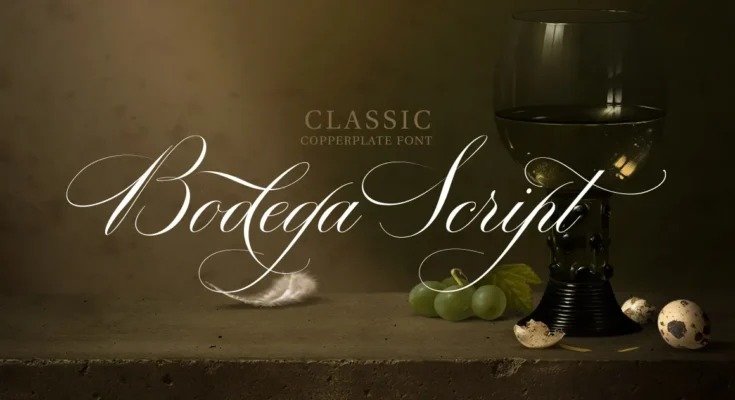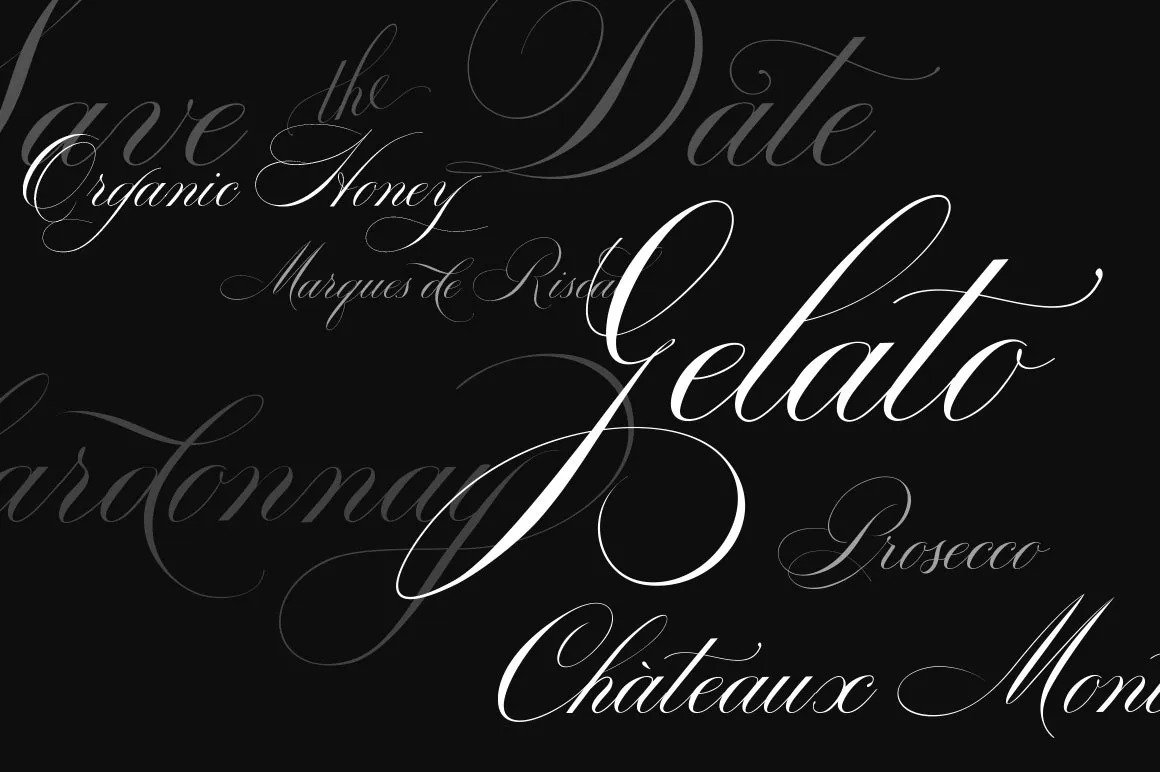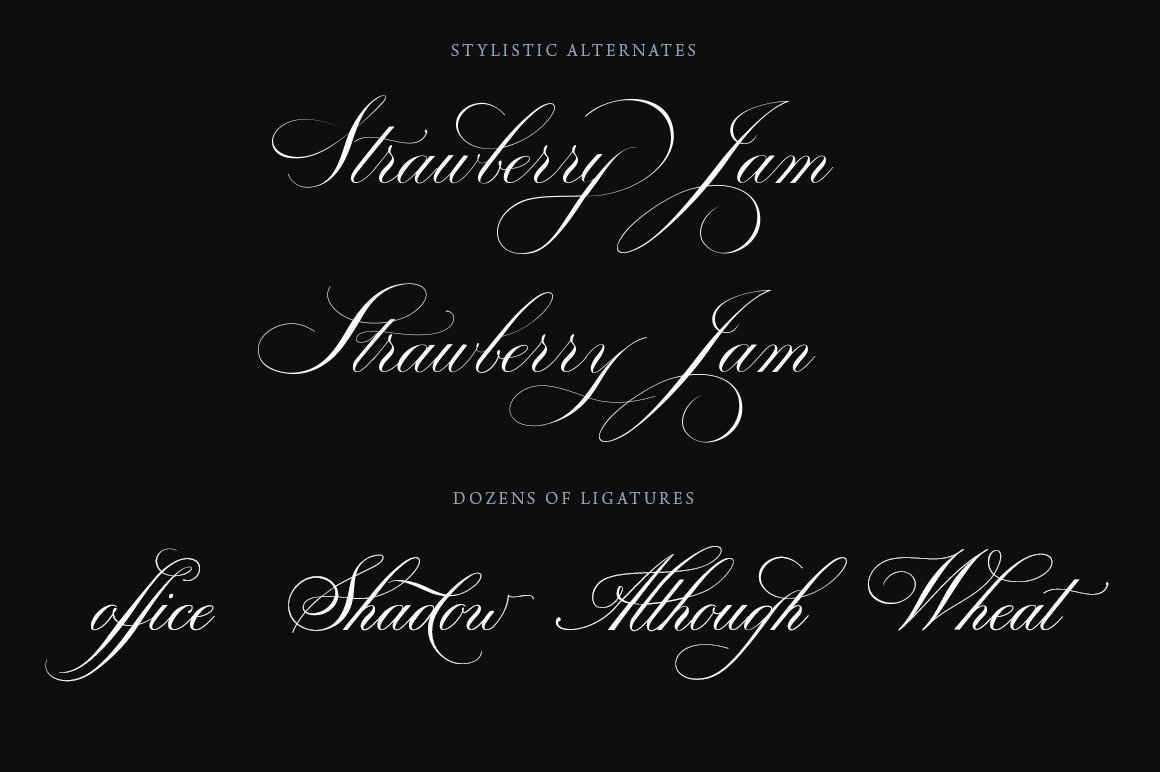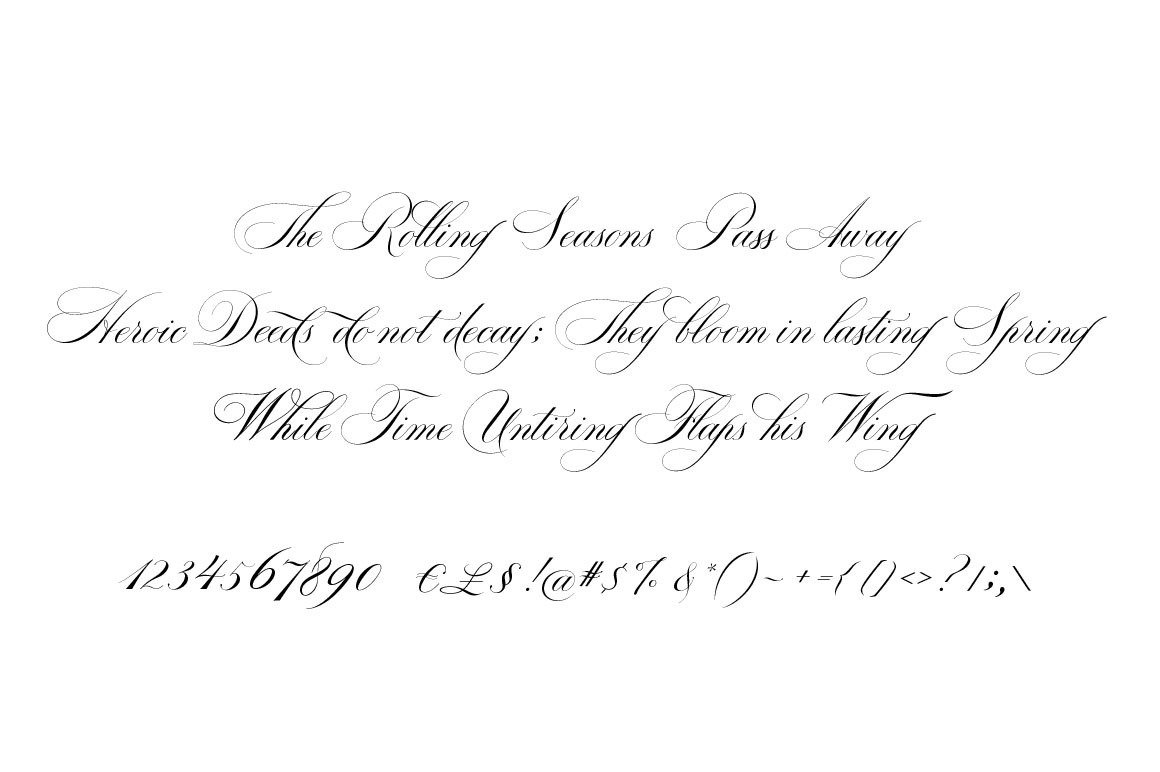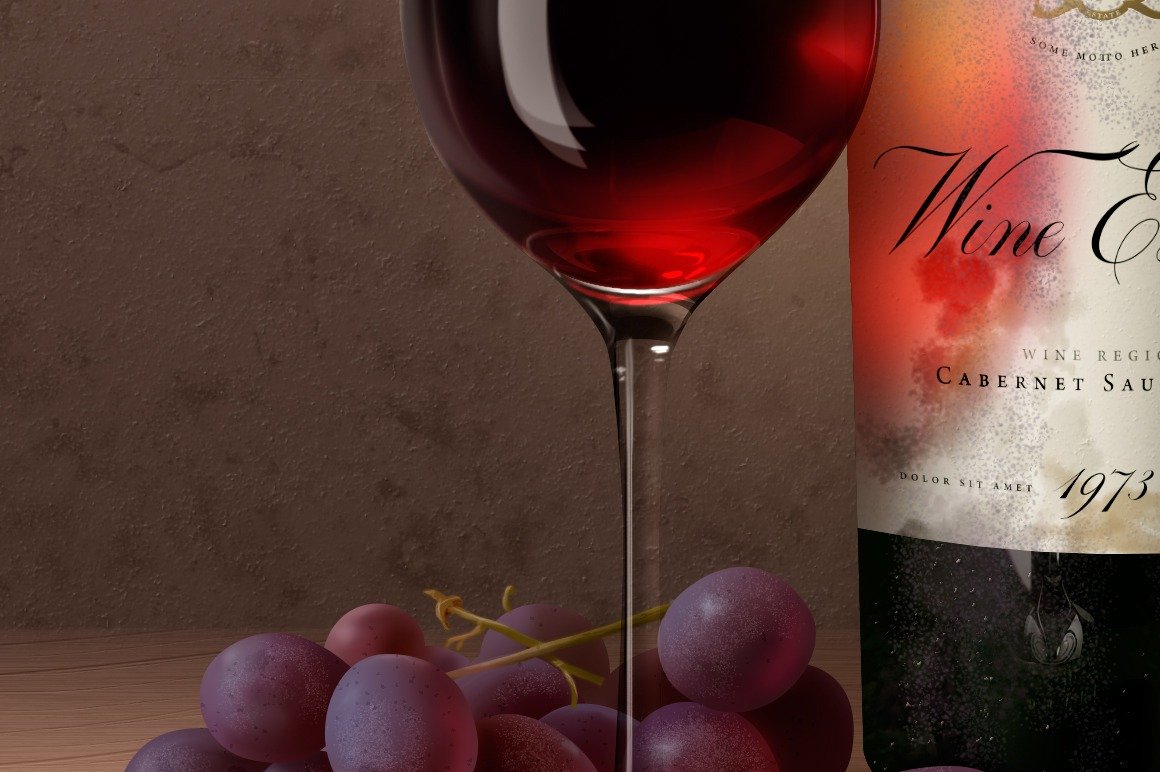
Bodega Script – An Elegant Wedding Font for Timeless Celebrations
Introduction
Bodega Script Elegant Wedding Font Typography plays a subtle yet powerful role in shaping the atmosphere of any event, especially weddings. The choice of font used in invitations, menus, signage, and décor can set the tone for the entire celebration. Among the many typefaces available to couples and designers, Bodega Script has gained admiration for its elegant, romantic, and timeless aesthetic. With its flowing curves, refined details, and versatile application, Bodega Script is considered one of the most sophisticated wedding fonts for modern celebrations.